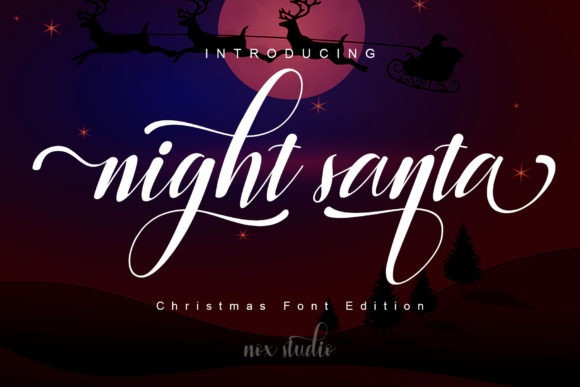
Night Santa Script Font
Night Santa is a dazzling and timeless handwritten font. It is the best choice for creating eye-catching logos, branding, and quotes. This font is PUA encoded which means you can access all of the glyphs and swashes with ease!